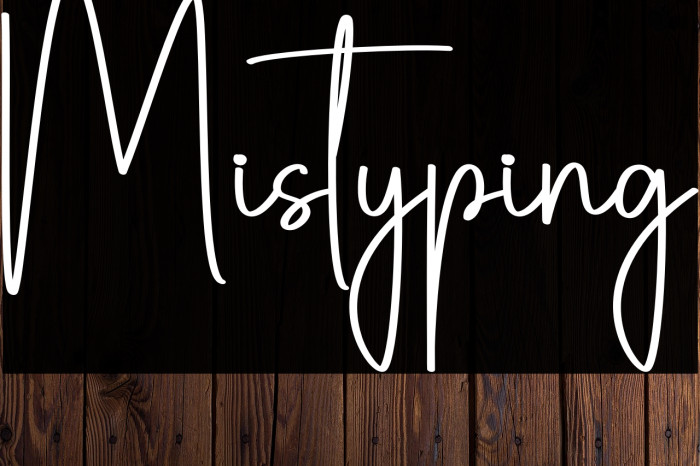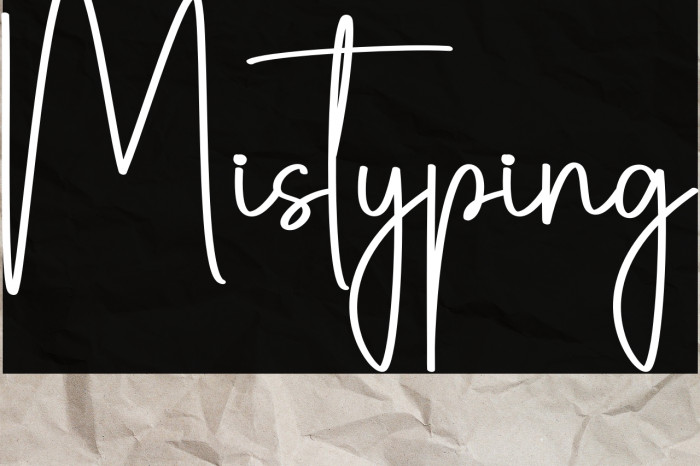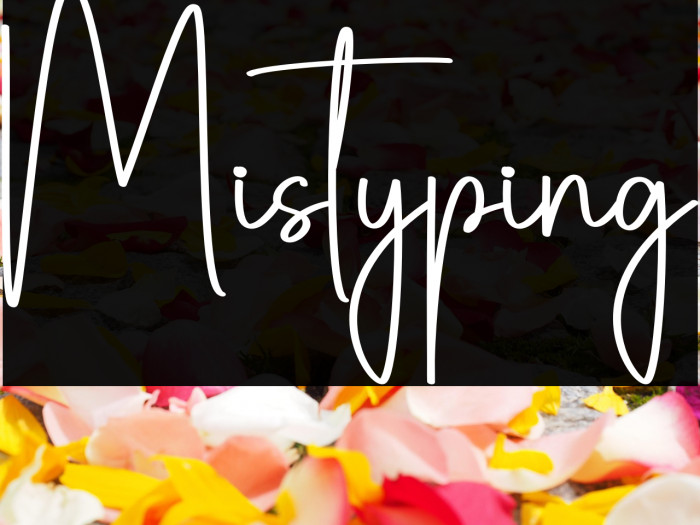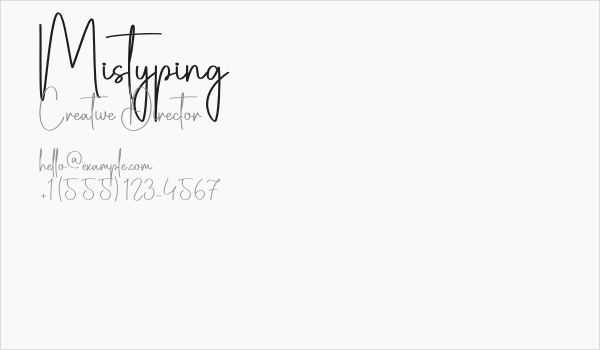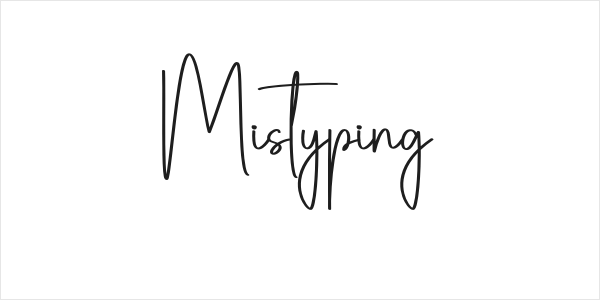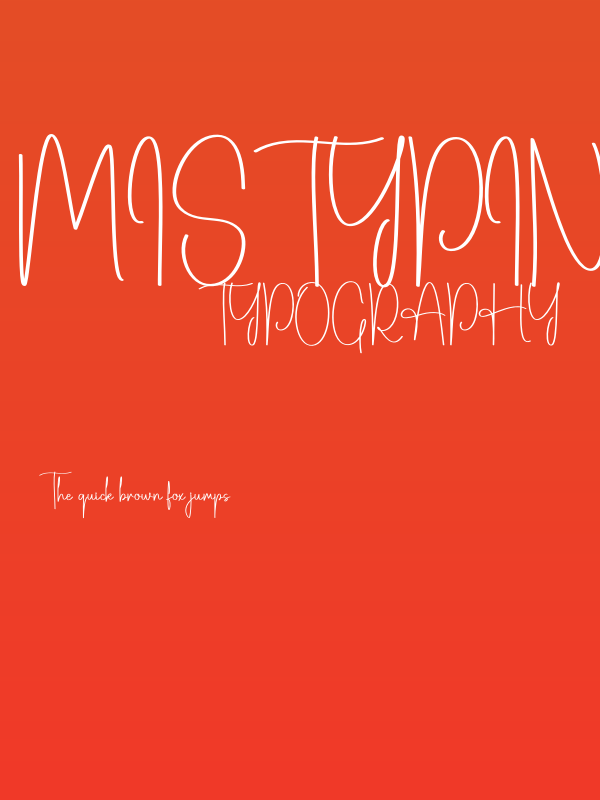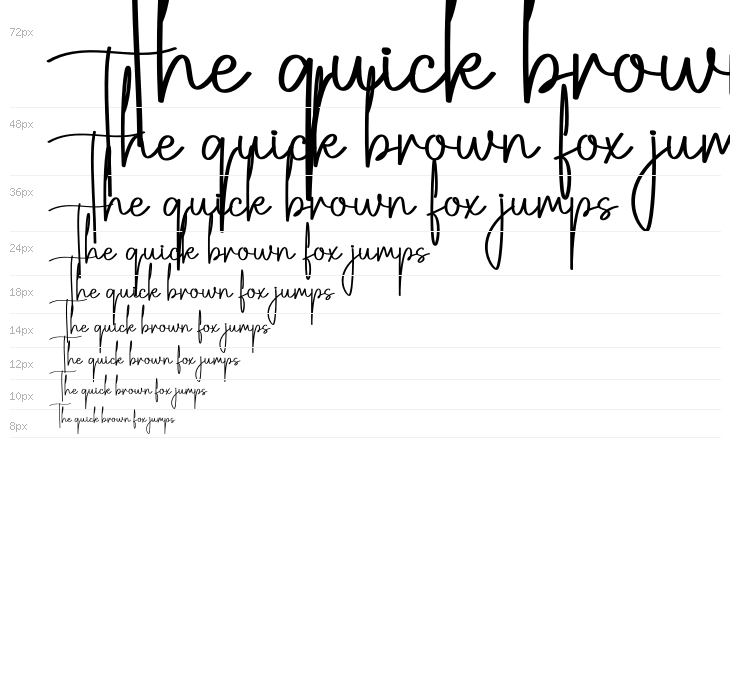
Mistyping Font
Mistyping Description
This font features a playful and whimsical handwritten style, characterized by its tall, slender letters with a slight slant. The uppercase letters are elegantly elongated, while the lowercase letters maintain a consistent height, giving the font a cohesive look. The strokes are smooth and fluid, with a natural flow that mimics casual handwriting. The numbers and special characters are designed to match the overall aesthetic, with a similar height and stroke style. This font exudes a sense of creativity and informality, making it suitable for projects that require a personal touch.
Overall StyleWhimsical, Playful
Use CaseLogos, Invitations, Personal Branding
Proposed ProjectsIdeal for greeting cards, invitations, personal branding, and creative projects that require a personal touch.